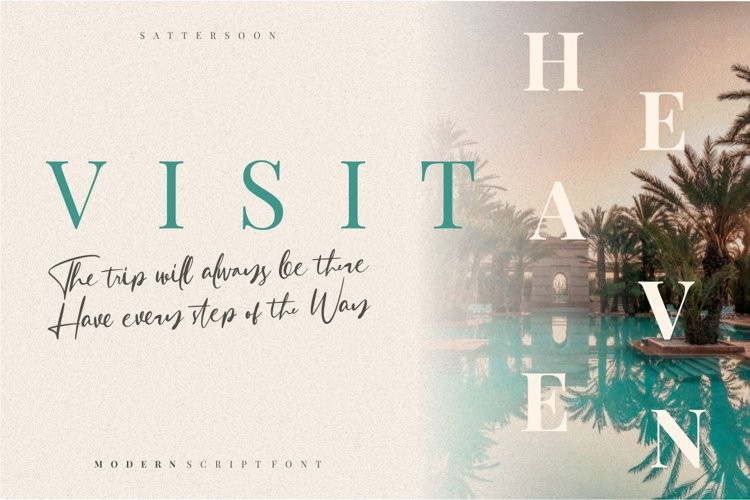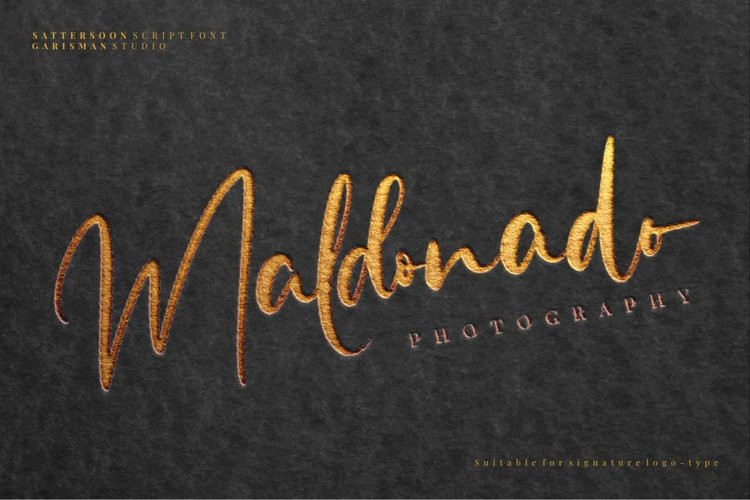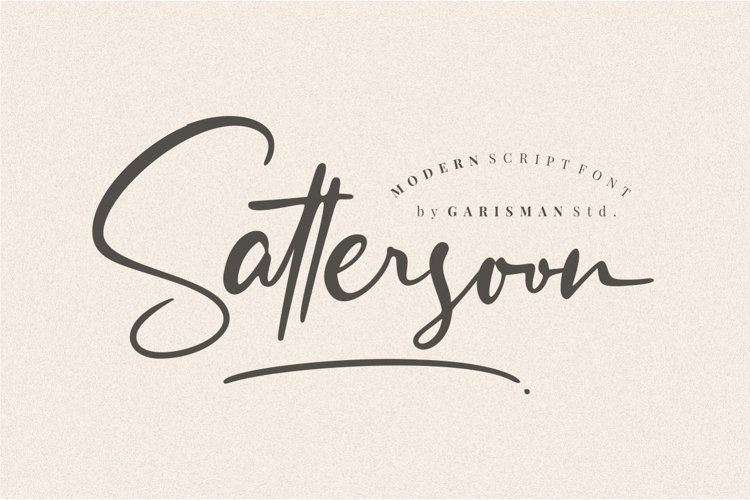
Sattersoon Font
Sattersoon FontSattersoon is made naturally modern script with the ending swashes and more than 170 ligatures. With the unique Opentype in it and the ligature will add aesthetic value to your design product. Available in this file are Sattersoon Swash which you can unite into an amazing design.